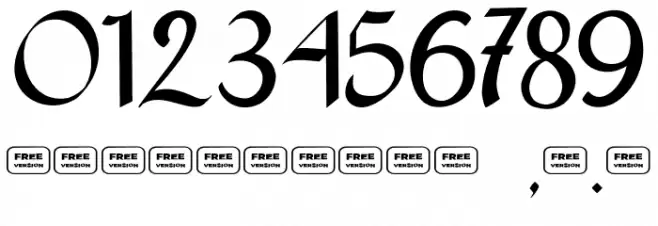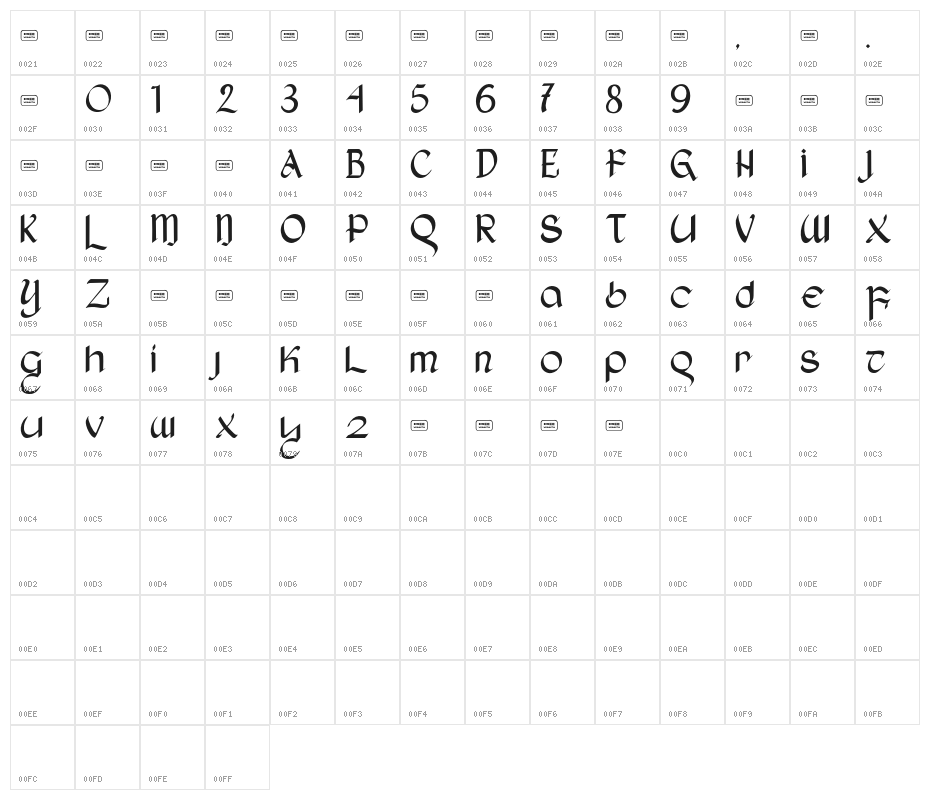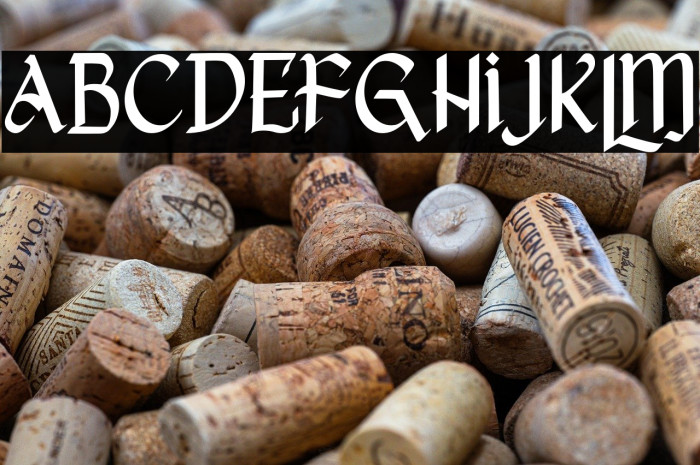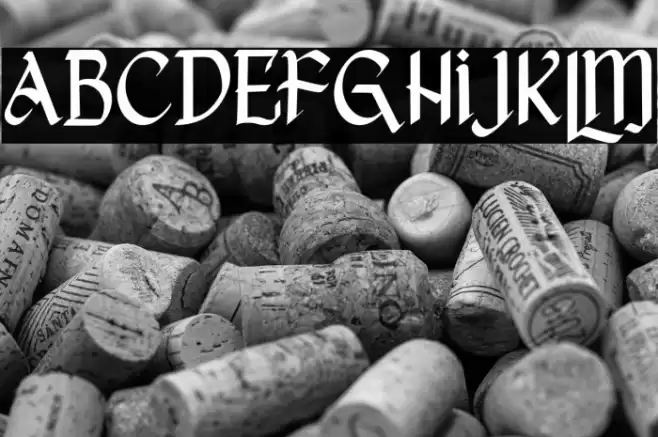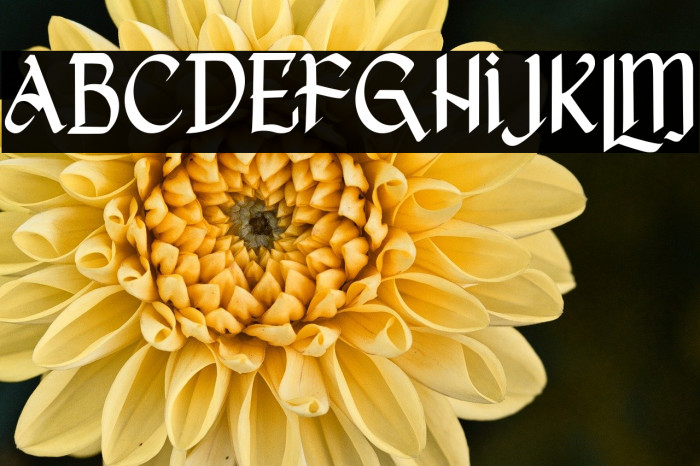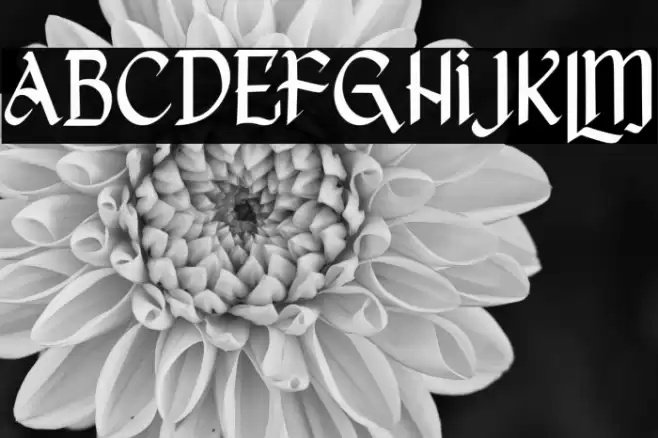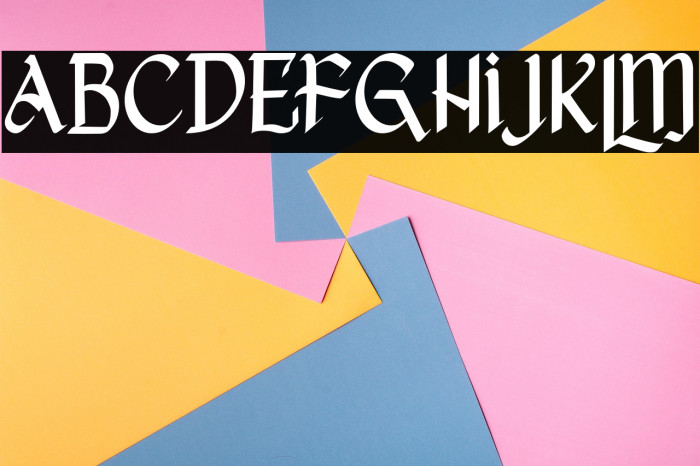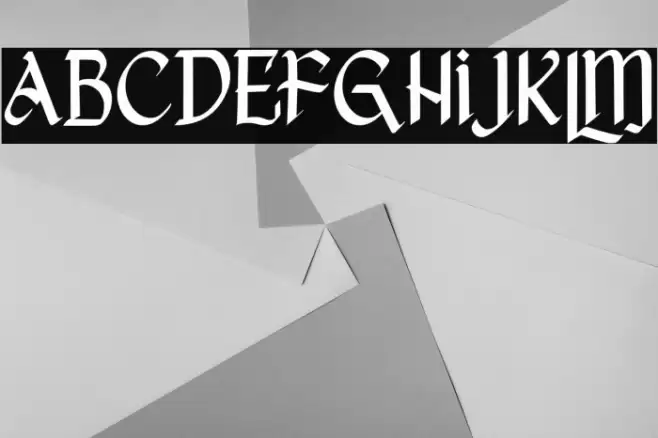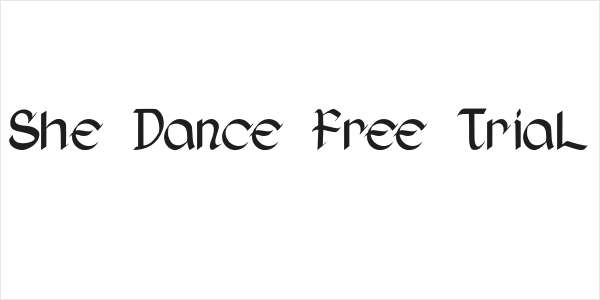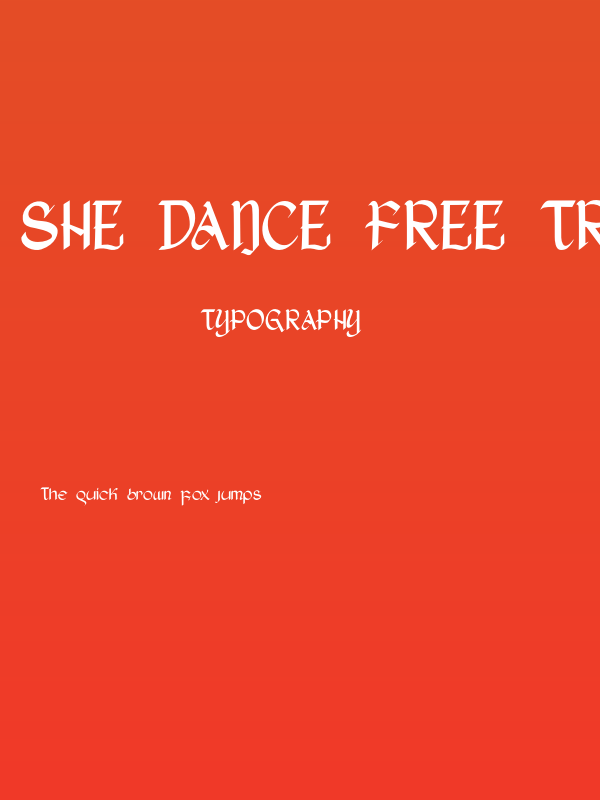
She Dance Free Trial Font
She Dance Free Trial Description
This font features a distinctive, bold blackletter style with sharp, angular lines and dramatic curves. The uppercase letters exhibit a strong presence with their intricate design, while the lowercase letters maintain a consistent flow, enhancing readability. The numerals are equally bold, matching the overall aesthetic with their unique, stylized forms. The special characters complement the set, maintaining the same level of detail and craftsmanship. This font's design is reminiscent of medieval script, offering a historical and artistic flair.
| Use Case | Headlines, Logos, Decorative text |
| Proposed Projects | Ideal for projects requiring a historical or gothic touch, such as book covers, posters, or themed event invitations. |